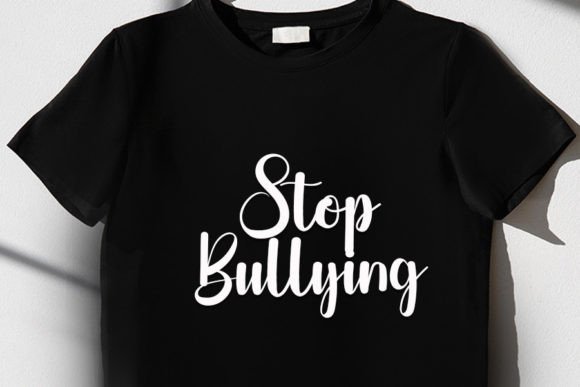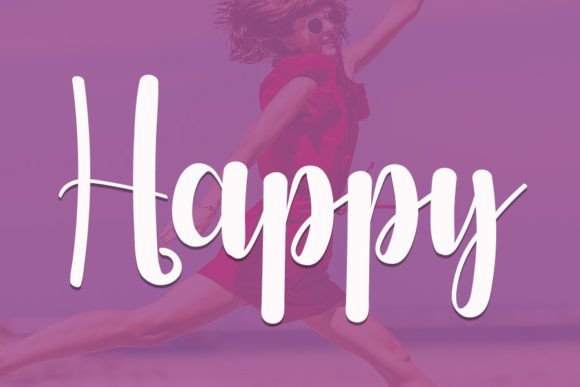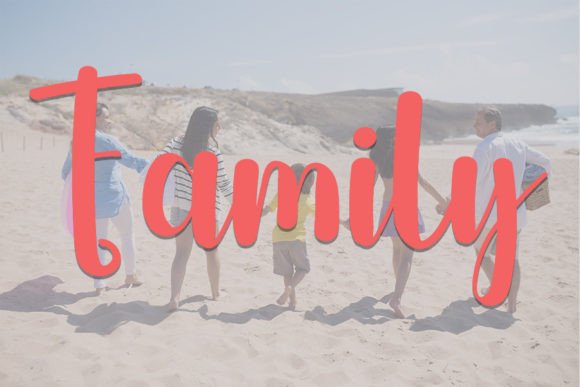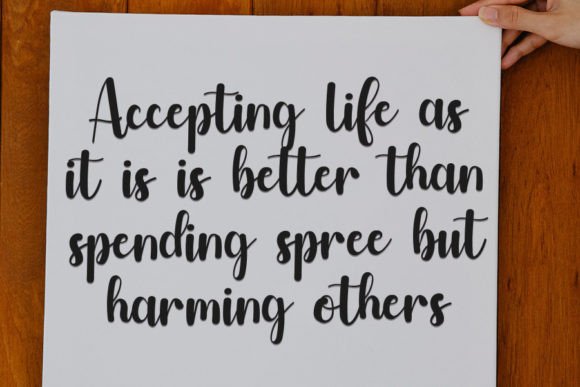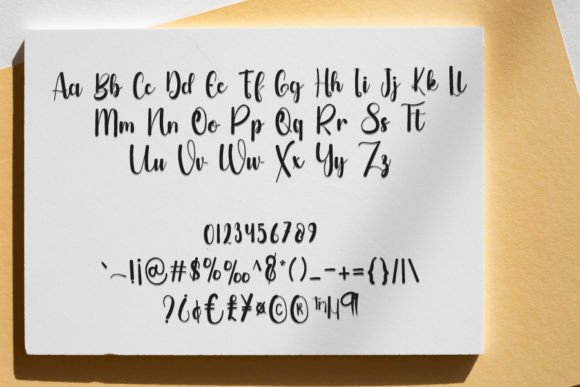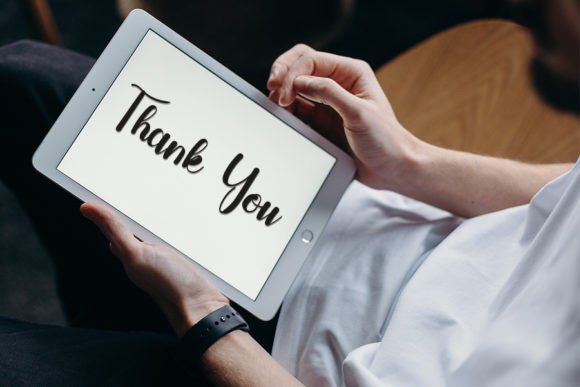
The Perfect Brushstroke: Unlocking the Power of Careful Font
You’ve stared at a blank page, your mind a jumble of ideas and inspiration, but somehow the words just won’t come. The cursor blinks, taunting you, as you search for the perfect font to spark your creativity. And then, it happens – a gentle flourish of script, a delicate dance of letters that brings your vision to life.
Enter Careful Font, a modern, handwritten font that captures the essence of classic calligraphy. Designed to add a touch of elegance to your projects, this font strikes a perfect balance between thin and thick, creating a visually stunning effect. With its varied forms and spotless design, Careful Font is a valuable asset for designers seeking to elevate their work to the next level.
Whether you’re crafting a wedding invitation, a logo, or a book cover, Careful Font is the perfect companion to help you convey your message with precision and flair.
Careful Font Key Features
- Unique Characteristics: Careful Font features a unique blend of modern and classic elements, making it suitable for a wide range of design projects.
Careful Font Review
As a designer, I was excited to dive into “Careful Font”, a typeface that promises to provide a unique and elegant feel. After some hands-on experience, here are my thoughts:
- Beautifully crafted letterforms: Each character in “Careful Font” is meticulously designed to create a sense of refinement and sophistication.
- Perfect for body text: This font is ideal for long blocks of text, as it’s easy to read and doesn’t fatigue the eyes.
- Highly versatile: “Careful Font” can be used in a variety of contexts, from magazines to websites and even book covers.
- Limited expressiveness: While “Careful Font” is great for body text, it may not be the best choice for headlines or titles that require a bit more pizzazz.
- No bold or italic variants: This font is best used in its regular weight, as the bold and italic versions are not as refined.
- May not work well in small sizes: At very small sizes, the characters can become difficult to read, so it’s best to use this font at a minimum of 14-16 points.
While “Careful Font” has its limitations, I believe it’s a great addition to any designer’s toolkit. With its beautiful letterforms and high versatility, it’s perfect for any project that requires a touch of elegance and sophistication.
Tips for Getting the Most Out of “Careful Font”
For optimal results, use “Careful Font” in conjunction with a clean and simple design. Avoid overusing bold or italic text, as it can detract from the overall effect.
“Careful Font” is ideal for use in:
- Body text in brochures and flyers.
- Headings and titles in business cards and resumes.
- Labels and captions in product packaging and photography.